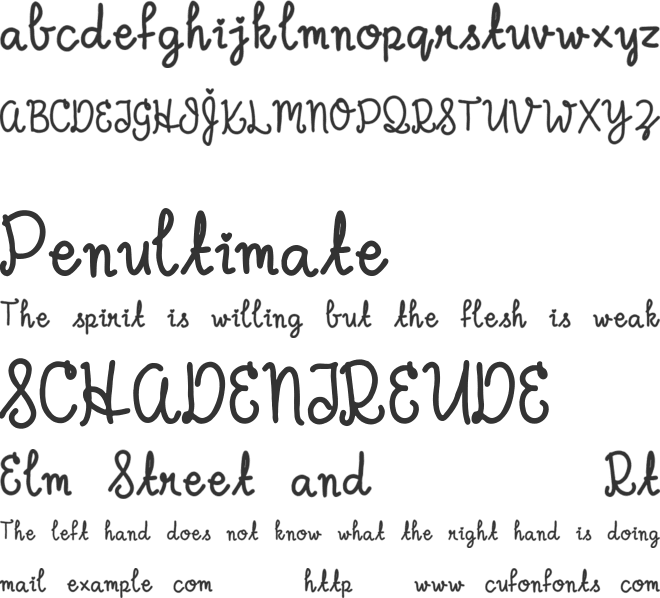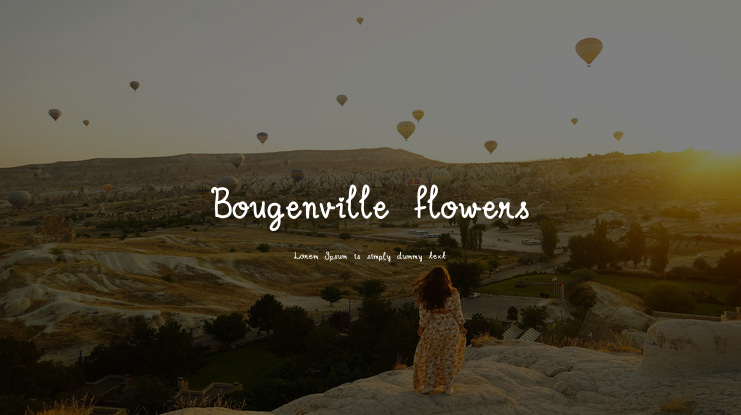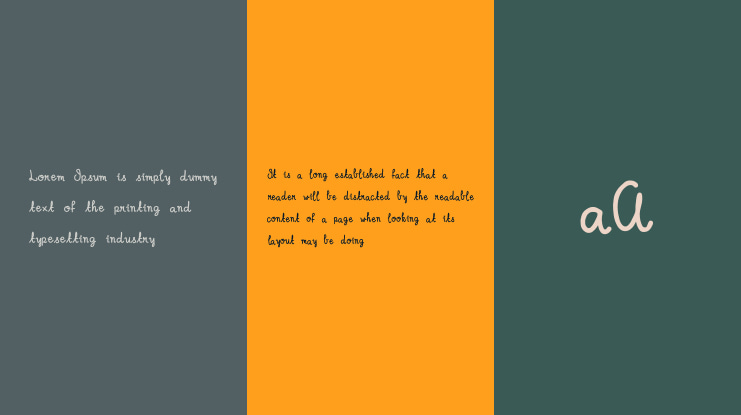
Bougenville flowers Font
Bougenville Flowers is a simple and friendly handwritten font. Fall in love with its incredibly distinct and timeless style and use it to create spectacular designs!